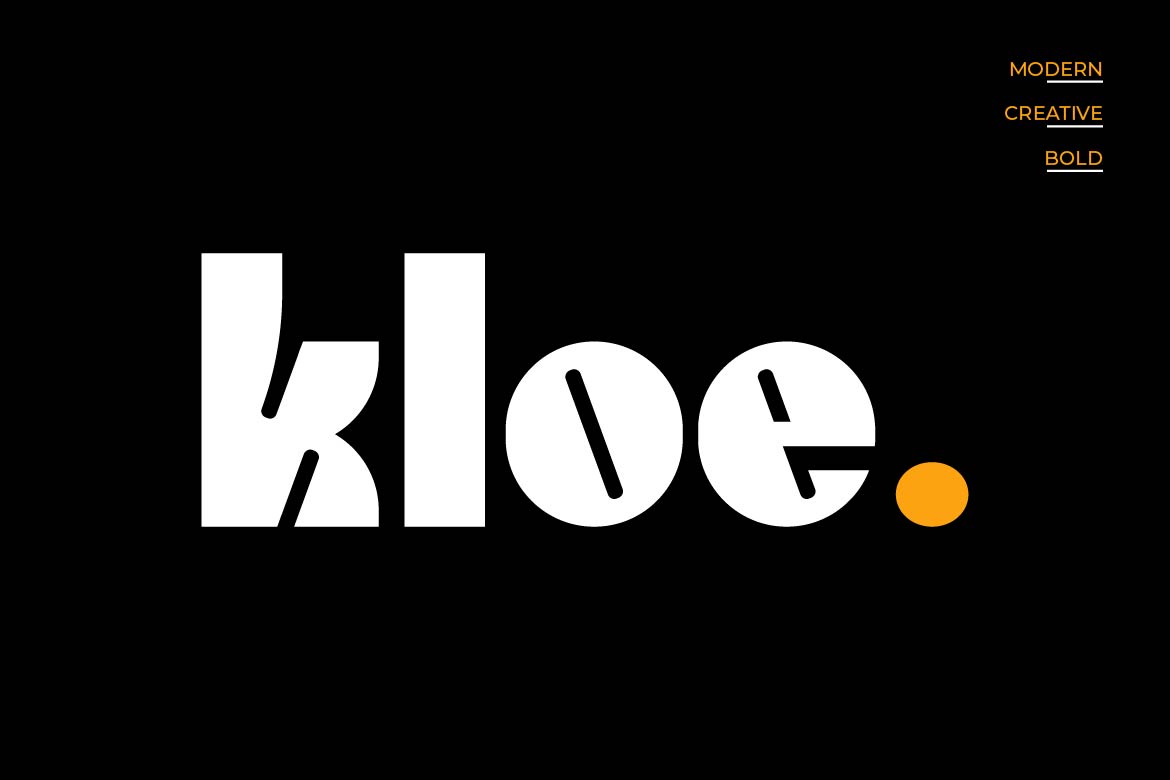
- Kloe – Bold Display Font for Modern Stylish Branding
Kloe is a bold display typeface designed to create strong, stylish, and modern visual impact. With solid letterforms, clean lines, and balanced proportions, Kloe delivers a confident presence that stands out in any design.
Perfect for branding, logos, posters, packaging, advertising, and social media visuals, Kloe combines bold strength with a refined contemporary aesthetic. Its clean structure ensures readability while maintaining a distinctive and eye-catching look.
Kloe is ideal for designers who want bold typography with a modern and stylish edge, suitable for both print and digital applications.
Kloe is not just a font — it’s bold, clean, and made to stand out.